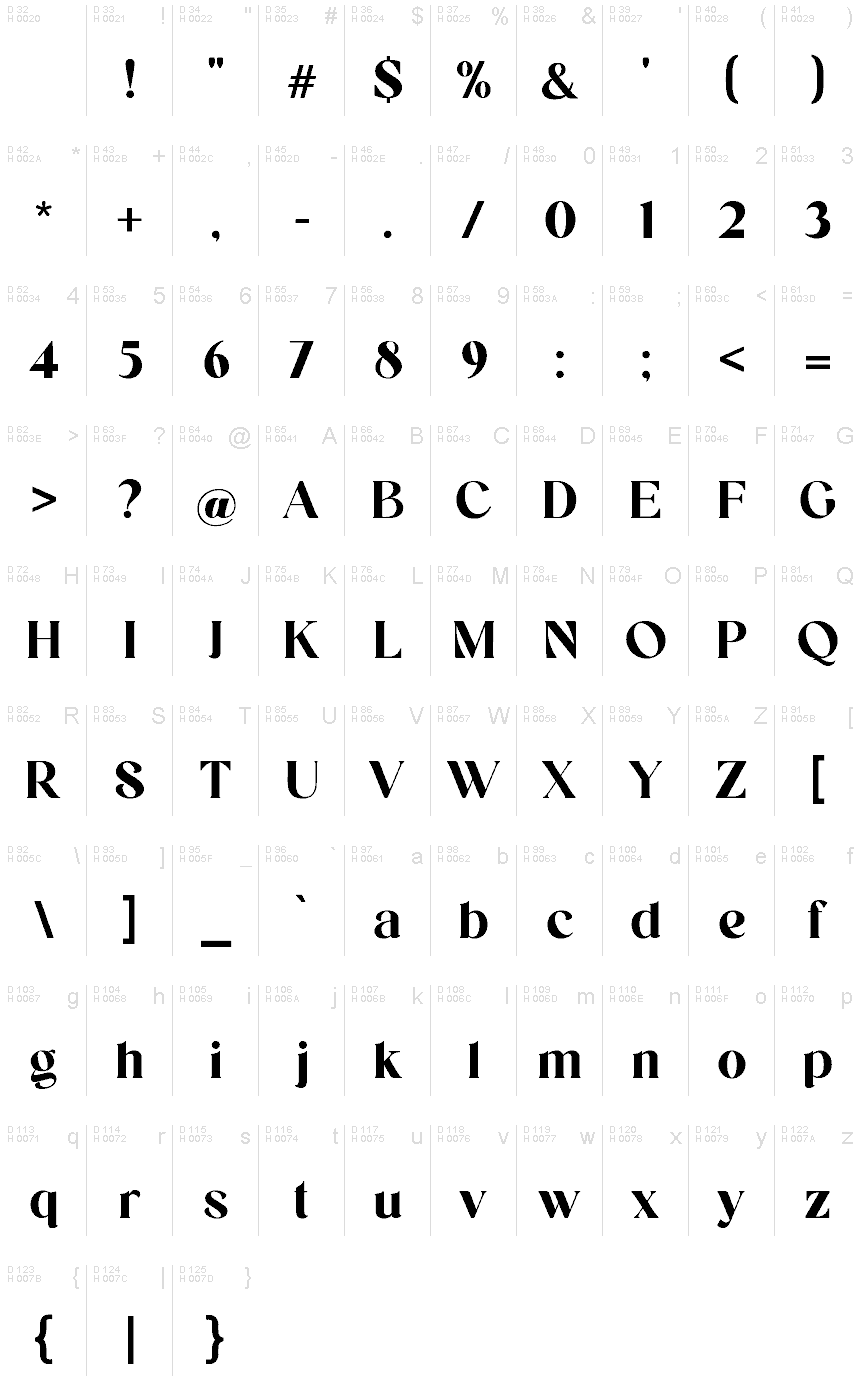
The Bigmouth Regular
The Bigmouth font by UI Creative is a bold serif typeface that embodies elegance and sophistication. It’s the perfect blend of modern and sleek, offering a contemporary aesthetic that stands out across various applications. The font's unique structure delivers a polished, refined appearance that enhances the overall visual experience.
This free serif font is suitable for branding, logos, packaging design, posters, websites, book titles and covers. Its versatility also makes it an excellent choice for graphics in social media posts or as an eye-catching headline for websites thereby increasing engagement from viewers with its gracious presence.